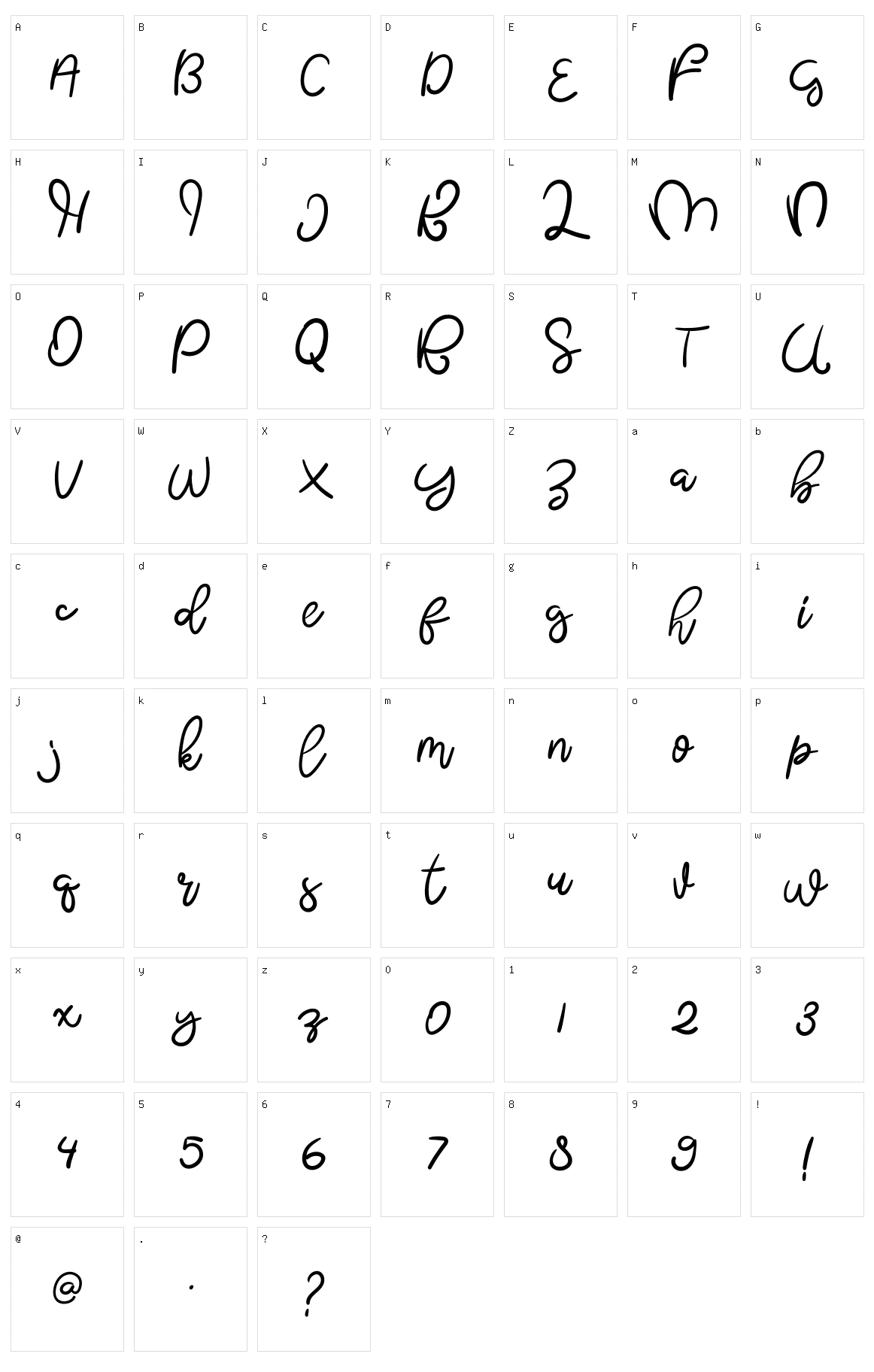
The free font Butterfly is carefully designed by alphArtype, showcasing a thoughtful balance of creativity and usability and falls under the Script font style. When you download the ZIP file, it contains only 14.89 KB of font files, making it lightweight and quick to download. Please review the license details below to understand permitted usage and distribution rights. If license information is not available, we recommend using this font for personal projects only or contacting the author directly for commercial usage permissions.